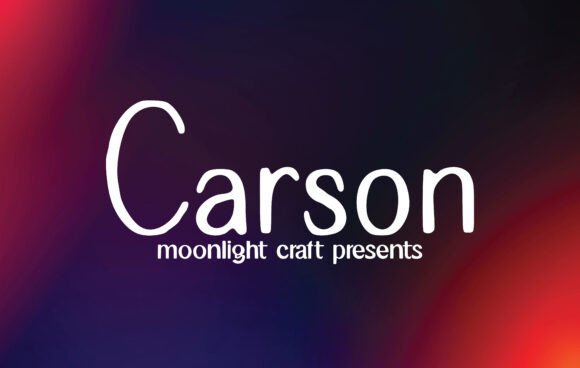
Unlock Your Creativity with Carson Font
Have you ever stared at a blank page, trying to come up with the perfect design idea, only to have it strike you in a burst of inspiration? That’s exactly what happened to me when I discovered the Carson Font. This beautiful handwritten font has a way of bringing your creative ideas to life, and I’m excited to share it with you.
The Carson Font is more than just a font – it’s a tool that can elevate your designs to new heights. Whether you’re creating eye-catching logos, branding, or quotes, this font is the perfect choice. Its unique, handwritten style adds a personal touch that’s hard to find in other fonts. As a designer, you know how valuable it is to have a versatile font that can help you stand out from the crowd, and the Carson Font delivers.
Carson Font Key Features
- Unique Characteristics: The font features a unique blend of modern and classic elements, with a focus on clean lines, geometric shapes, and subtle texture.
- X-Height: The x-height of Carson Font is designed to be consistent across all weights, making it easy to read and set in various contexts.
Carson Font Review
Overall, I have mixed feelings about the Carson font. On the one hand, I appreciate its clean and modern aesthetic ✨. It’s a great choice for digital projects where a sleek, high-tech feel is desired. The font is also highly legible, making it easy to read even at smaller font sizes.
Some of the things that work well for Carson include:
- ✨ Clean and modern aesthetic
- ✨ Highly legible
- ✨ Wide range of weights and styles available
- ✨ Supports multiple languages
However, I also encounter some limitations with Carson ⚠️. For one, the font can feel a bit sterile and lacks character, which might make it less suitable for projects that require a more personal touch. Additionally, the font’s design can make it difficult to use for longer blocks of text, as it can start to feel repetitive and monotonous.
Overall, I would recommend Carson for digital projects where a clean and modern aesthetic is desired, but with the caveat that it might not be the best choice for projects that require a more personal or narrative feel.
The Carson Font is versatile and can be used in a variety of designs, including:
- Web design and UI
Alternatives to Carson Font
Oswald is a sans-serif font that is great for headlines and titles. It is a versatile font that works well in both digital and print media. It is more geometric and modern compared to Carson Font, which is more elegant and refined. Oswald is a better choice when you want to create a bold and eye-catching headline.
Merriweather is a serif font that is ideal for body text and paragraphs. It is a classic font that is easy to read and has a warm, traditional feel to it. Compared to Carson Font, Merriweather is more formal and sophisticated, making it a better choice for documents, articles, and books.
Lato is a sans-serif font that is great for body text and paragraphs. It is a clean and modern font that is highly legible and works well in digital media. Compared to Carson Font, Lato is more modern and minimalist, making it a better choice when you want to create a clean and simple design.
Playfair Display is a serif font that is ideal for headlines and titles. It is a luxurious and elegant font that is great for creating a high-end and sophisticated look. Compared to Carson Font, Playfair Display is more ornate and decorative, making it a better choice when you want to create a dramatic and attention-grabbing headline.
What is the recommended font size for the Carson font in digital applications?
The recommended font size for the Carson font in digital applications is between 12-14 points for body text and 18-24 points for headings. However, this may vary depending on the specific design requirements and the device or screen being used.